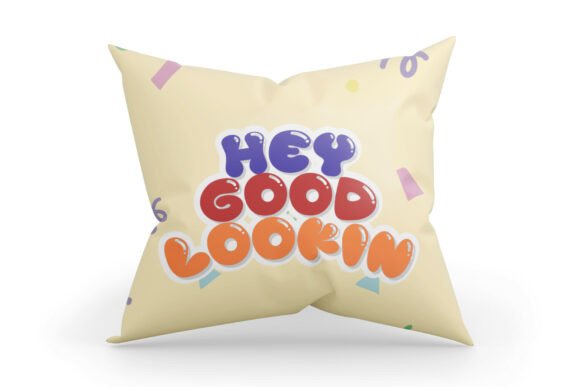
Introduction to Ploofy Font Font
Fonts play a crucial role in design, and the Ploofy Font font is a typeface that brings both character and versatility to any project. Whether you’re working on a branding project, a website, or a print design, the Ploofy Font font offers a unique style that can elevate your work.
Presenting Ploofy, a captivating, round, and bubbly display typeface radiating an aura of joviality and blithe spirit.
This font is an ideal selection for endeavors requiring a dash of amusement and frolic Embracing curves, soft angles, and robust, bold letters, Ploofy perfectly encapsulates the quintessence of this unique design philosophy.
Key Features of Ploofy Font Font
Why Choose Ploofy Font Font?
The Ploofy Font font is more than just a typeface – it’s a design tool that helps you communicate your message with style and clarity. Its unique character set and versatile design make it suitable for a wide range of applications, from elegant invitations to bold headlines.
With its carefully crafted letterforms and balanced proportions, the Ploofy Font font ensures readability and visual appeal across all mediums.
What makes Ploofy Font font special?
The Ploofy Font font stands out with its unique design, exceptional readability, and versatility across various design applications.